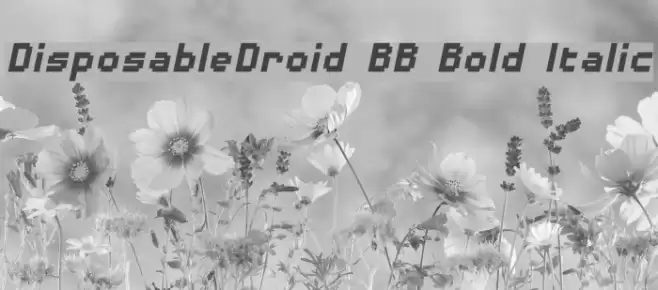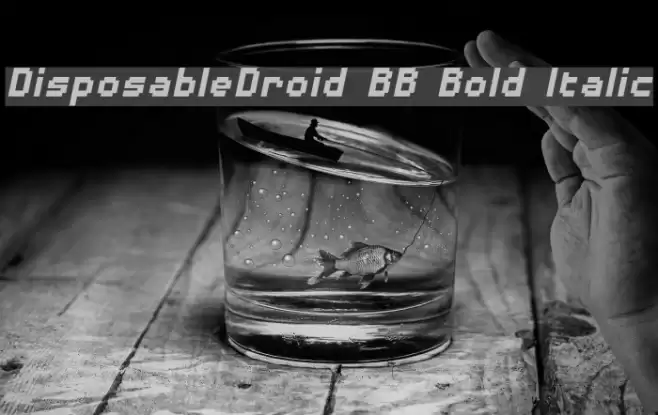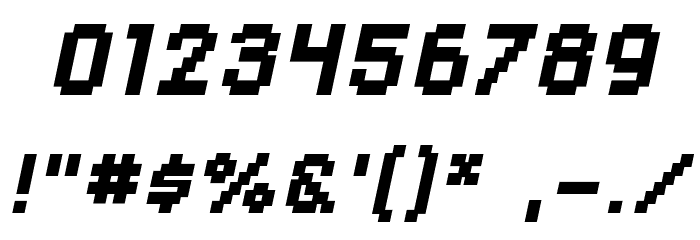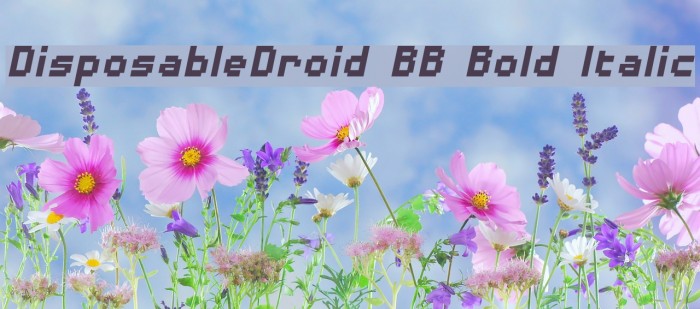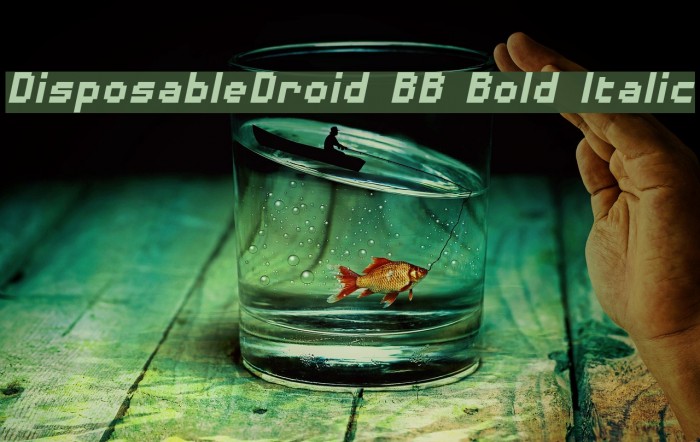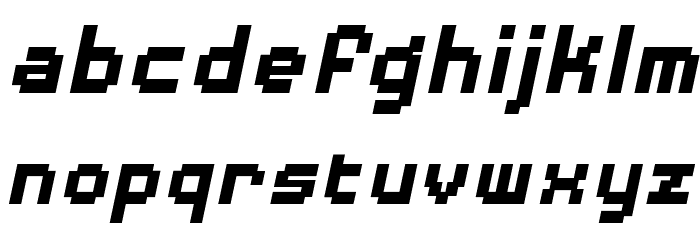
DisposableDroid BB Bold Italic Font
DisposableDroid BB Bold Italic Description
This font features a bold and italicized style with a distinct pixelated, blocky appearance reminiscent of retro video game graphics. The characters are uniformly thick, giving a strong and impactful look. The angular design and consistent stroke width contribute to its digital and futuristic aesthetic. The uppercase and lowercase letters maintain a cohesive style, with numbers and special characters following the same geometric pattern. The font's unique style makes it stand out, ideal for projects that require a nostalgic or tech-inspired theme.
A bold, italic, pixelated font with a retro digital aesthetic from Uncategorized fonts.
- Font: DisposableDroid BB Bold Italic
- Weight: Bold Italic
- Proposed Projects: Ideal for video game design, tech-themed posters, retro-style branding, and digital art projects.
- Overall Style: Retro, Digital